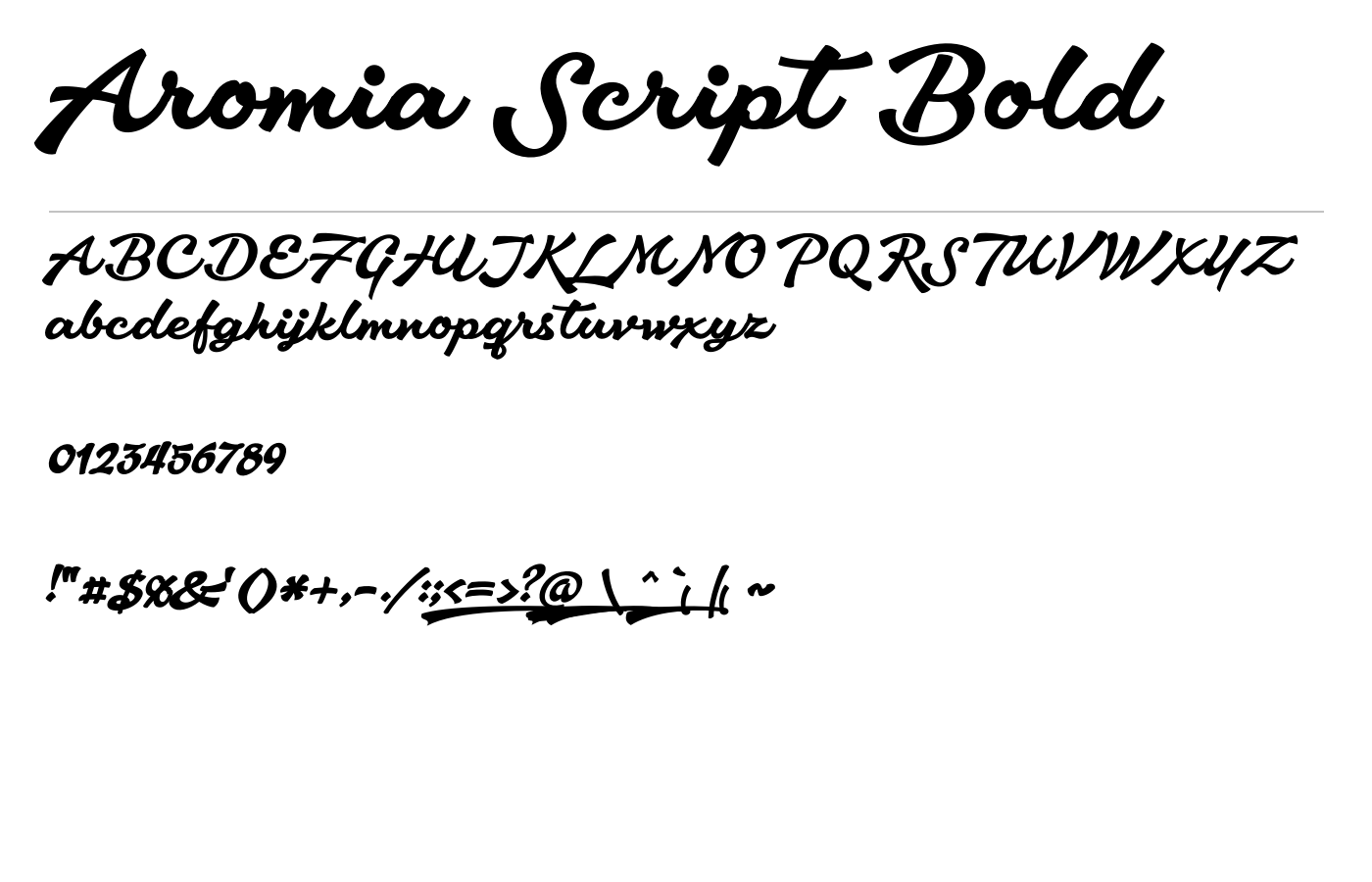
Aromia Script Bold is a lively and elegant script font with smooth, bold strokes that give it a friendly yet confident personality. Its connected letterforms and moderate contrast make it perfect for stylish headlines, logos, and branding that seek a modern, handwritten charm. This font works especially well in creative and fashion contexts, adding a touch of sophistication and warmth.
Aromia Script Font
About Aromia Script Font
| Font family | Aromia Script Font |